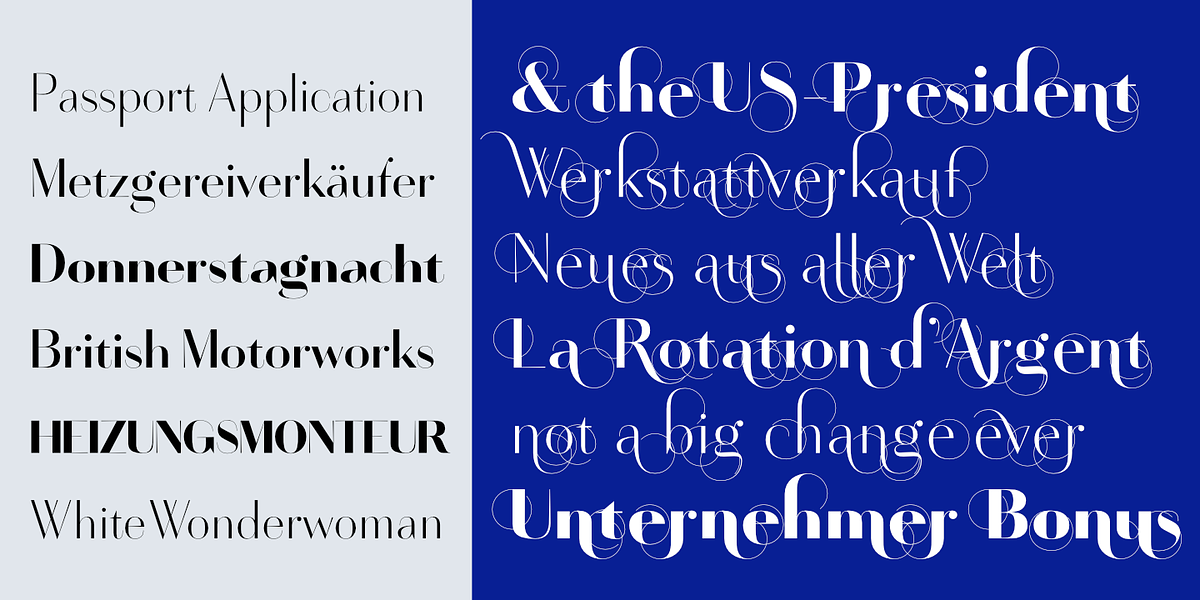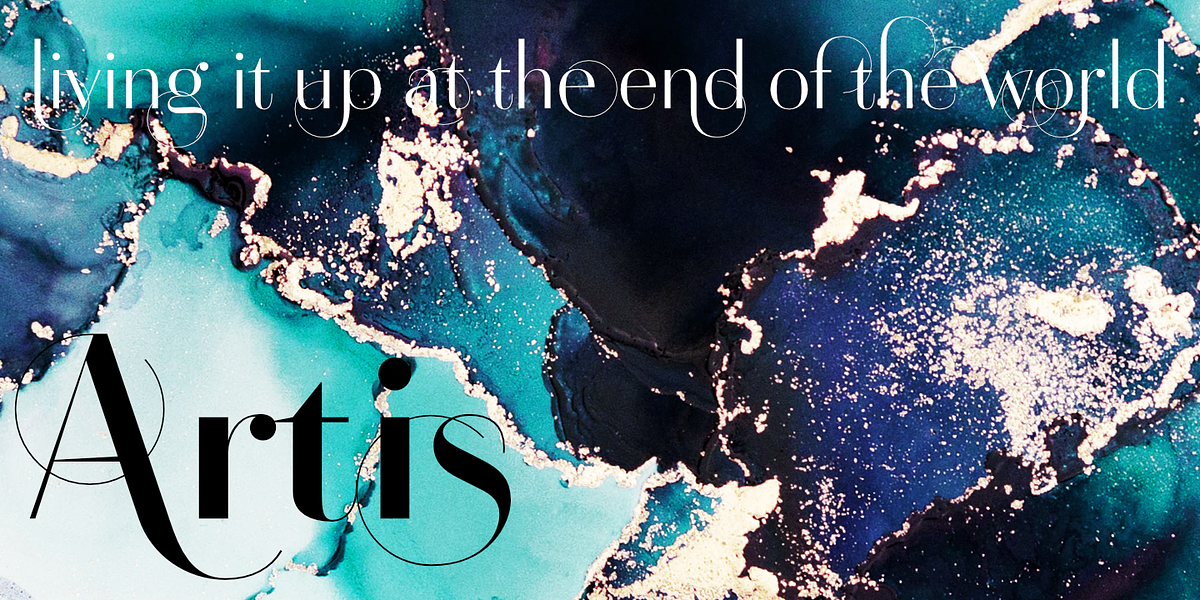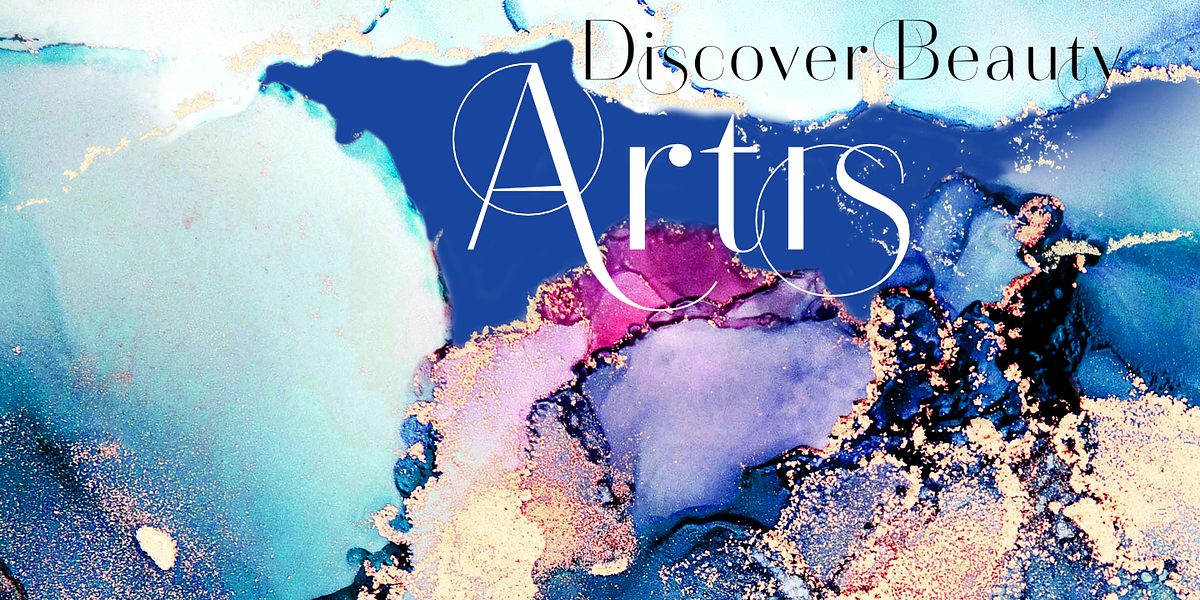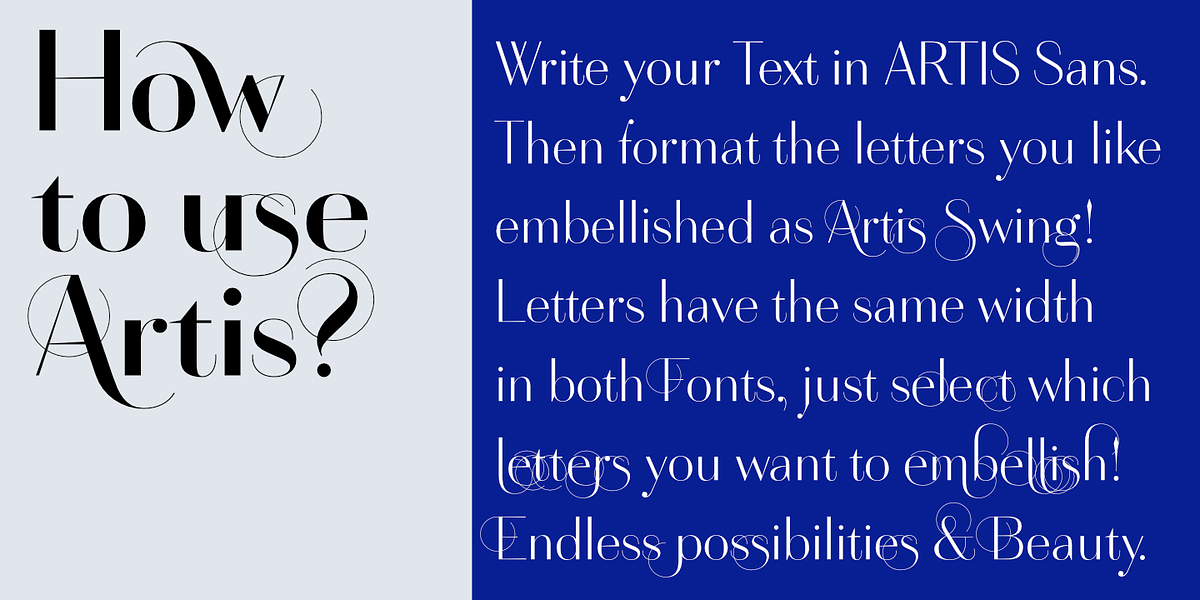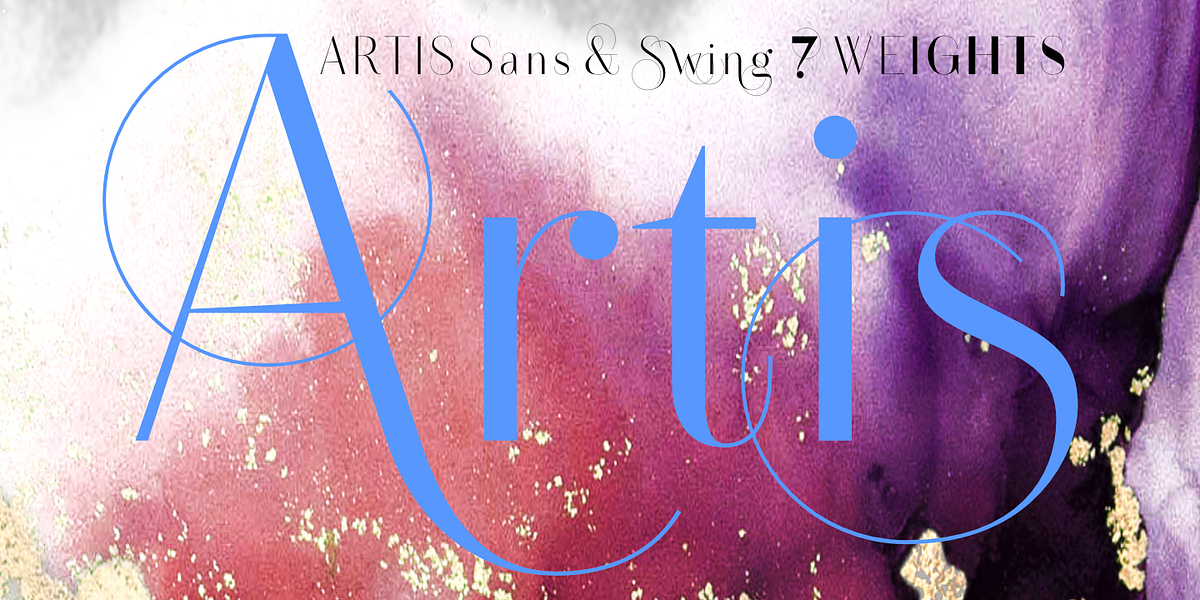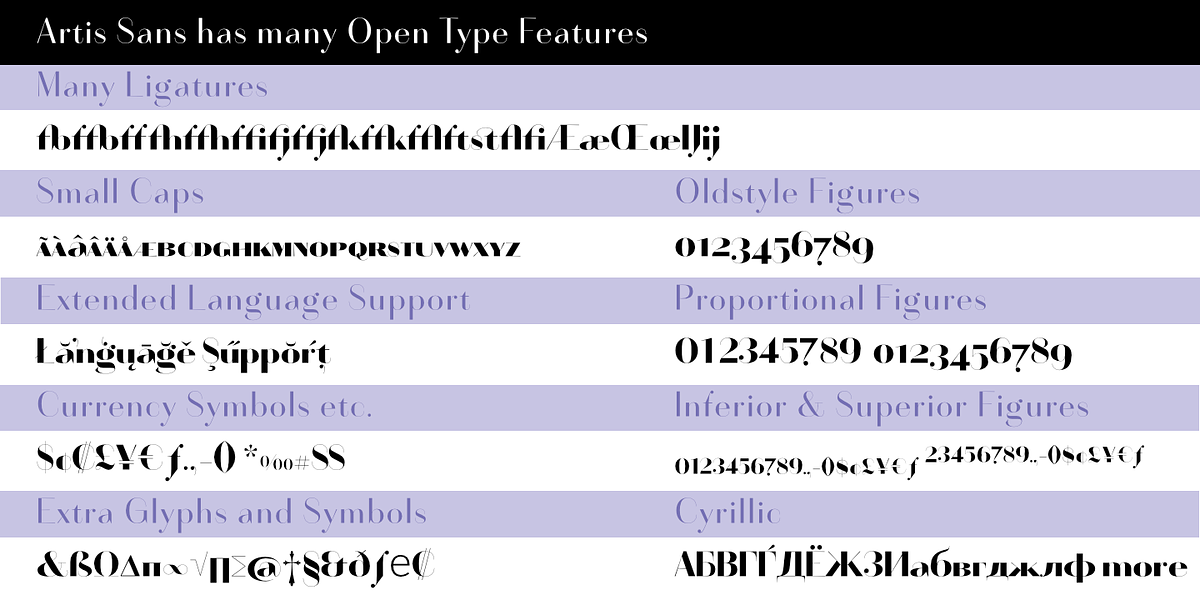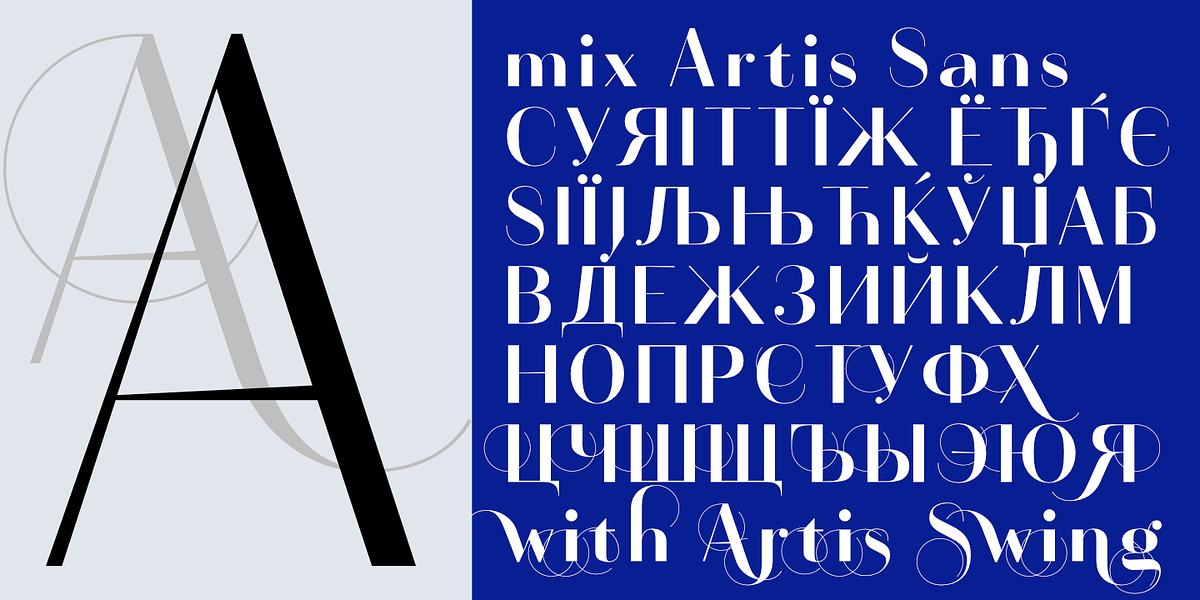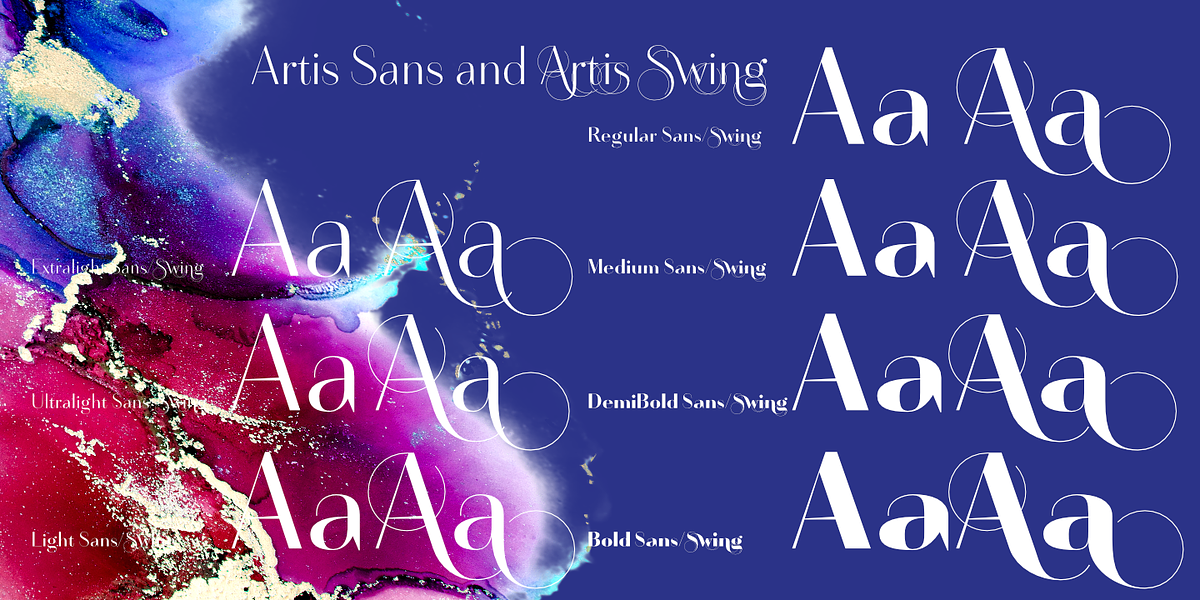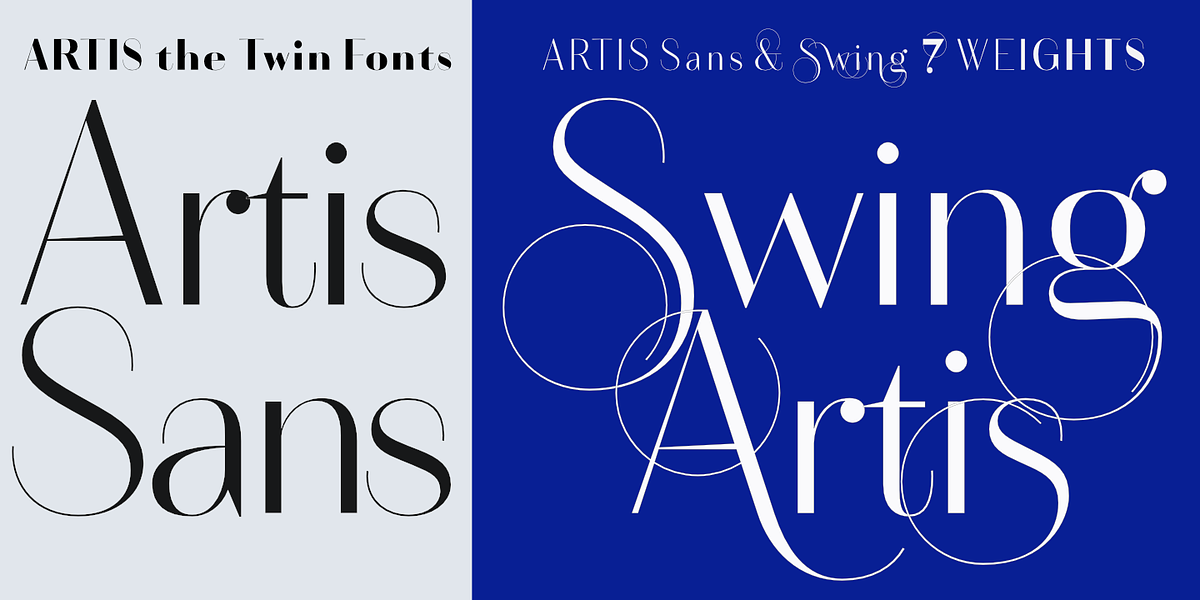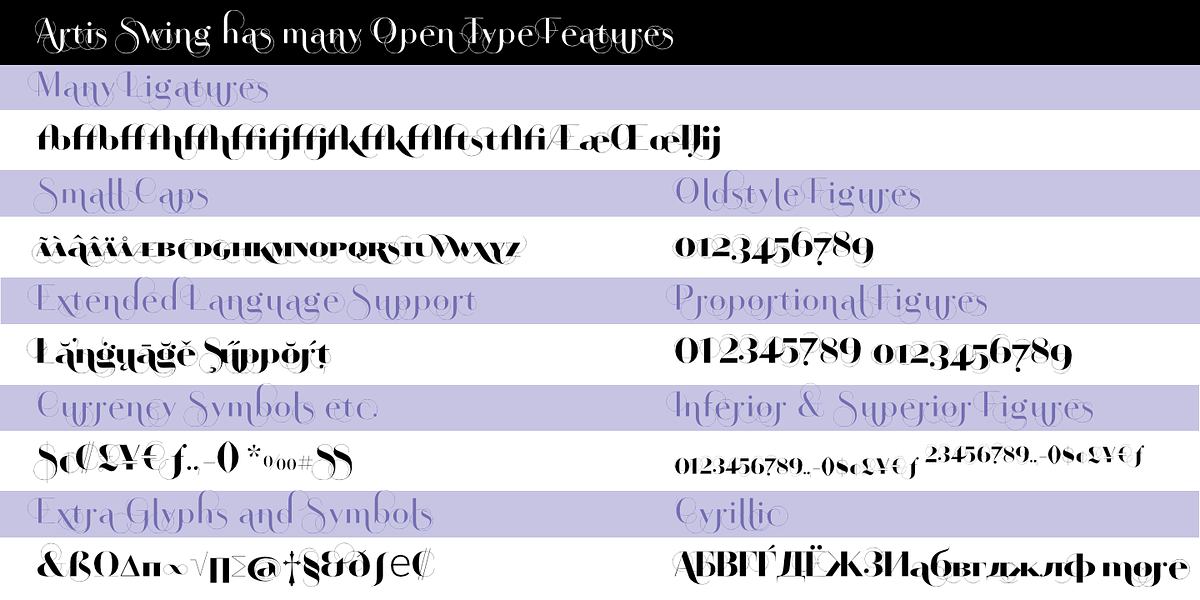
Artis
Artis is a modern display sans serif font family inspired by Renaissance art with a distinct touch of Art Deco influence. It features elegant swashes and ball terminals, giving it a unique and playful character. The font comes in seven weights from Extra Light to Bold and includes a swashed counterpart, Artis-Swing, for added versatility. Its extensive glyph set covers Latin, Cyrillic, and Central European characters, making it suitable for various languages. Artis is an excellent choice for headlines, branding, and other design applications requiring a sophisticated and eye-catching typeface.